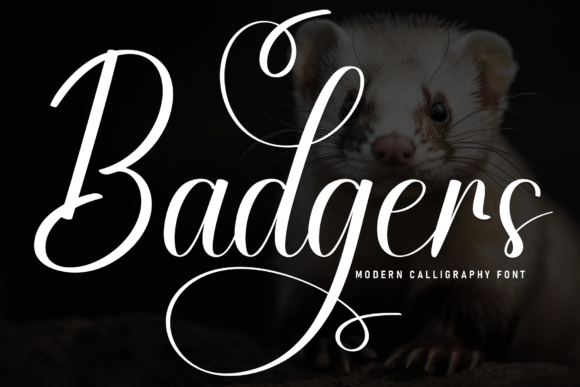
Unleash Your Creativity with Badgers Font
Have you ever stared at a blank page, searching for the perfect words to bring your creative idea to life? That’s exactly where I was when I stumbled upon the elegant Badgers Font. As a designer, I’ve worked with countless fonts, but there’s something special about this one that sets it apart.
Badgers Font is a delicate, handwritten font that exudes elegance and sophistication. Its beautiful, well-balanced characters make it the perfect addition to any design project. Whether you’re working on a wedding invitation, a branding campaign, or a creative blog post, Badgers Font is sure to elevate your design to the next level.
For designers, Badgers Font is a valuable tool that can help you take your ideas from concept to reality. Its versatility and timeless charm make it a must-have in your design arsenal. So why not give it a try and see how Badgers Font can bring your most creative ideas to life?
- Unique Character Set: Badgers Font features a unique character set that includes a wide range of ligatures, swashes, and alternate characters, adding a touch of elegance and sophistication to any design.
- Stylistic Variations: The font includes several stylistic variations, including bold, italic, and condensed styles, allowing designers to experiment with different looks and feels.
Designer Review: Badgers Font
Overall, I found the Badgers Font to be a charming and whimsical addition to any design project. ✨ The font’s unique, hand-drawn style lends itself well to creating a rustic, outdoorsy feel that’s perfect for branding and marketing materials.
The Badgers Font has a wide range of uses, from headings to body text, and it handles both cases well. ✨ I particularly appreciated the font’s flexibility, as it can be used in a variety of contexts without looking out of place.
- Unique, hand-drawn style
- Rustic, outdoorsy feel
- Flexible and adaptable
- Works well in a variety of contexts
- May not be suitable for formal or corporate designs
- Lack of bold weights may limit its use in certain contexts
- May require additional design elements to achieve a cohesive look
Overall, I think the Badgers Font is a great addition to any designer’s toolkit. While it may have some limitations, its unique style and flexibility make it a valuable resource for any project that requires a rustic, outdoorsy feel.
Getting the Most Out of Badgers Font
For best results, use the Badgers Font in bold or italic styles to add emphasis to your text.
The Badgers Font is ideal for:
1. Wildlife-themed designs and graphics.
2. Outdoor and nature-inspired branding.
3. Educational materials and presentations about wildlife and conservation.